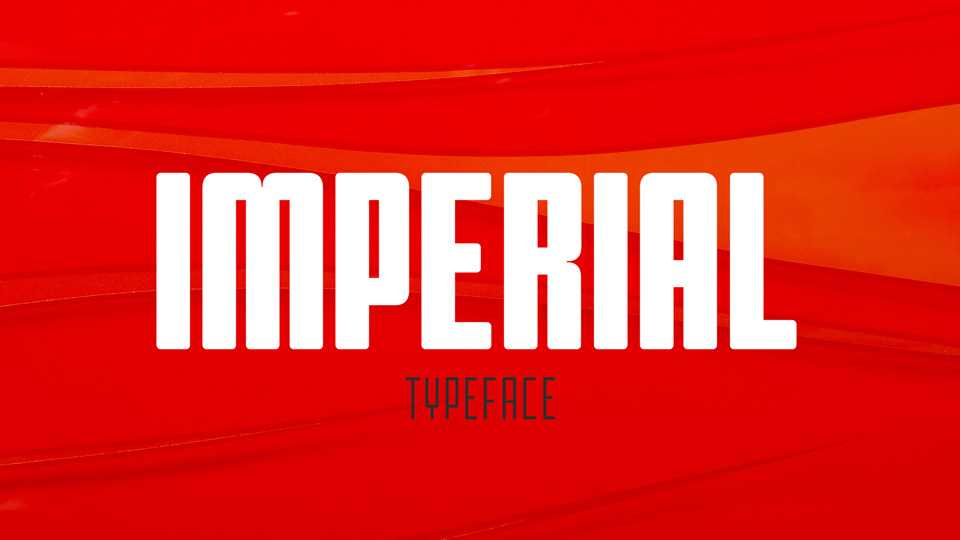
Download BP Imperial typeface, an caps-only condensed font family in two weights, each one accompanied by extreme 12 degrees italics. BP Imperial is a display font that literally stands out!
Designer: Backpacker